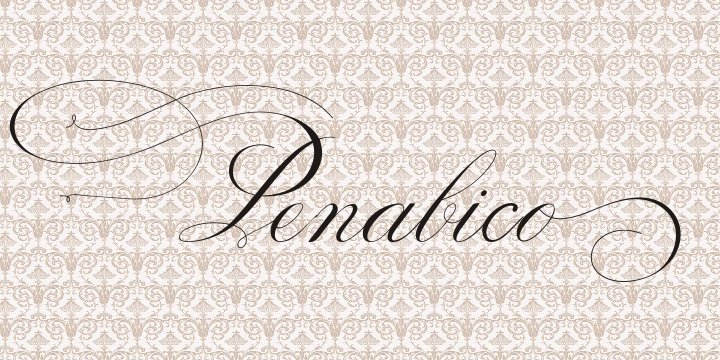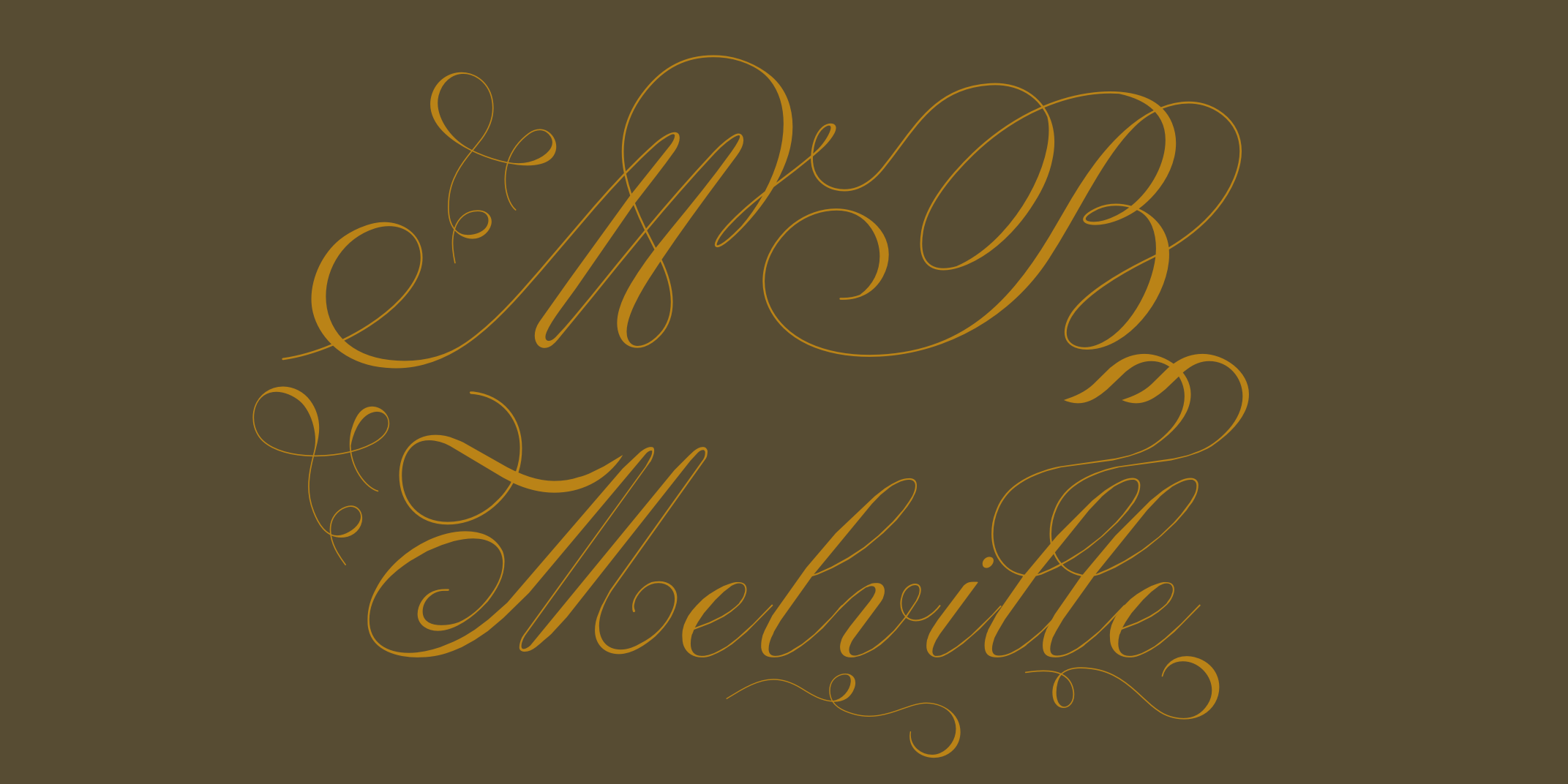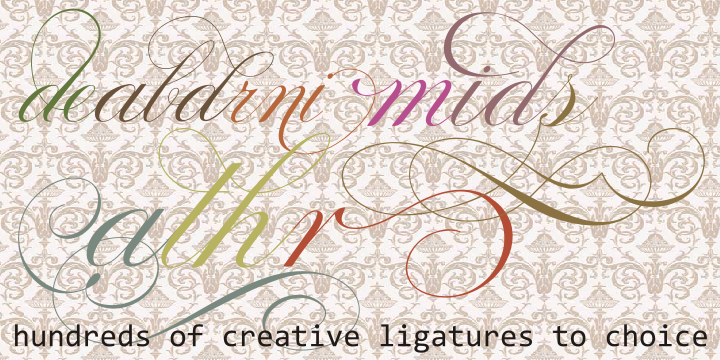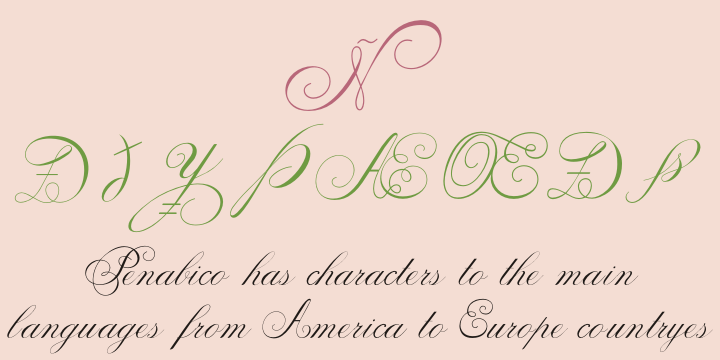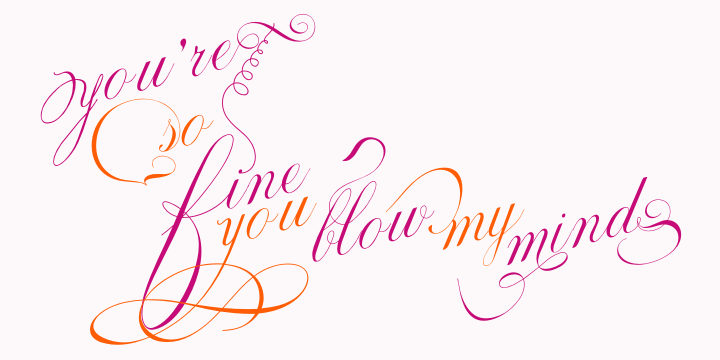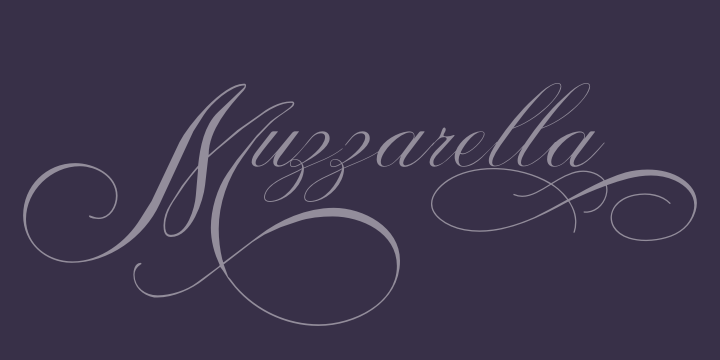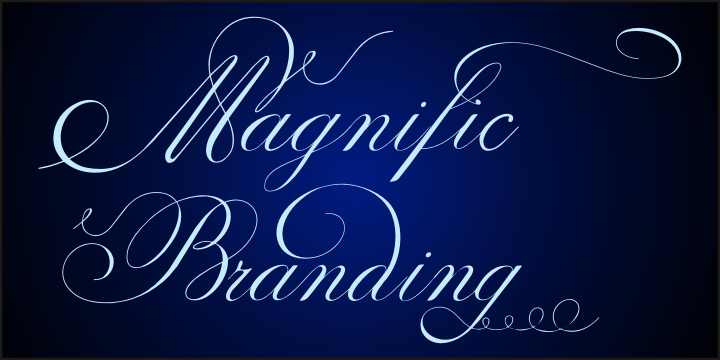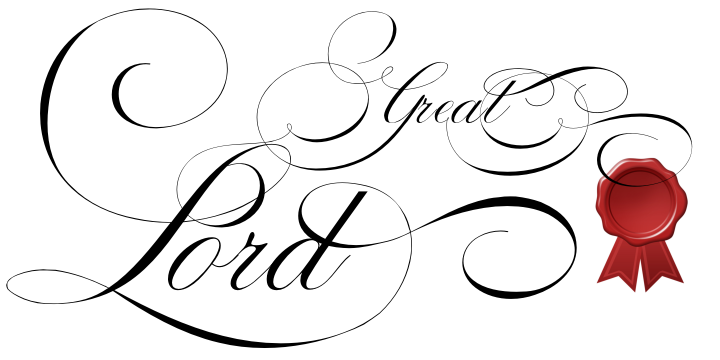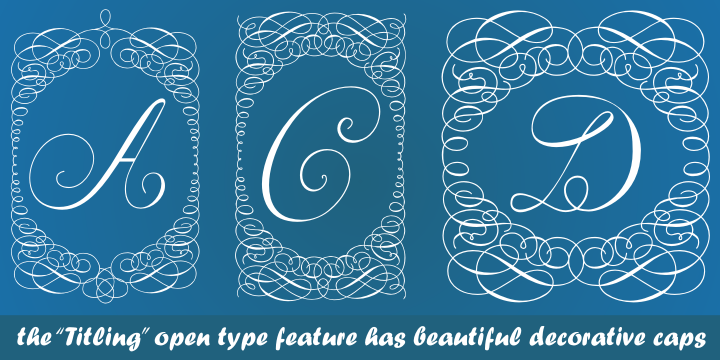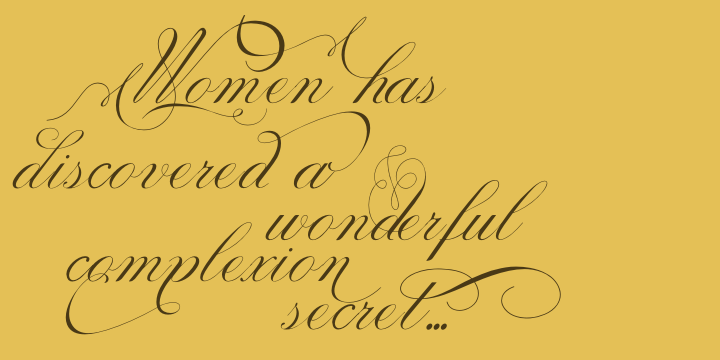
This enhanced OpenType version is a complete solution for producing documents and artworks which need this kind of calligraphic script:
- 100s of stylistic alternates for each letter (upper- and lowercase), accessed with the glyph palette;
- 250 ornaments and fleurons (mostly in the copperplate roundhand renaissance style) encoded in the dingbats range and accessed with the glyph palette (plus a special set with over 50 of these ornaments accessed with the ornaments feature);
- An extensive set of ligatures (100s of stylistic and contextual alternates plus discretionary ligatures) providing letterform variations that make your designs really special, resembling real handwriting on the page;
- Complete, intricate, ready-made calligraphic words;
- Abbreviations (in many languages). The principal font contains the complete Latin alphabet, including Central European, Vietnamese, Baltic and Turkish with all diacritic signs, punctuation marks (including interrobang). The German 'ß' (germandbls, eszett, sharp s) even has over six different alternate forms. And we don't forget to add the unconventional germandbls uppercase. In non-OpenType-savvy applications it works well as an English commercial script style font. Because of its high number of alternate letters and combinations (over 1500 glyphs), we suggest the use of the glyph palette to find ideal solutions to specific designs. The sample illustrations will give you an idea of the possibilities. You have full access to all glyphs using InDesign, Illustrator, QuarkXpress and similar software. However, we still recommend exploring what this font has to offer using the glyphs palette.